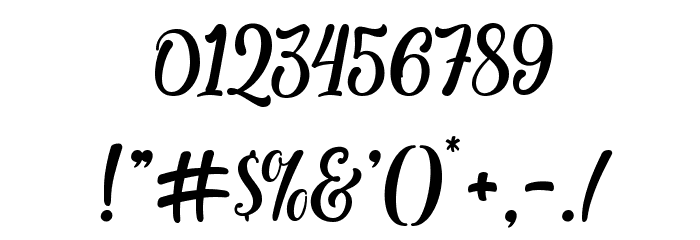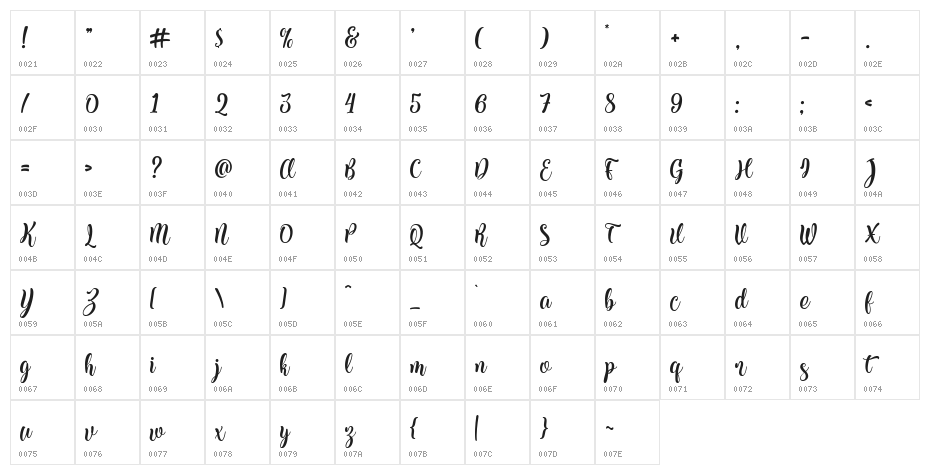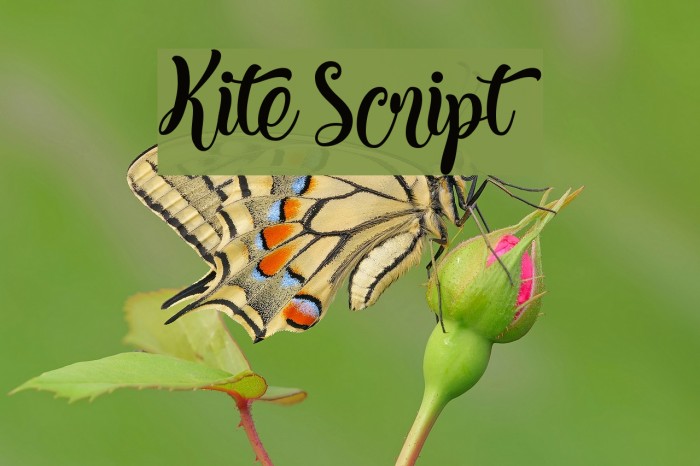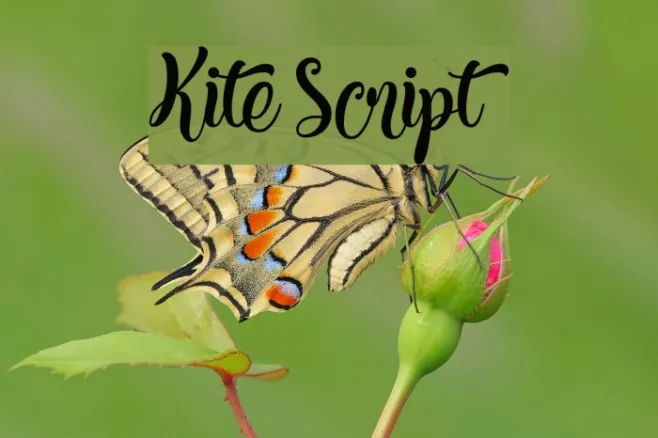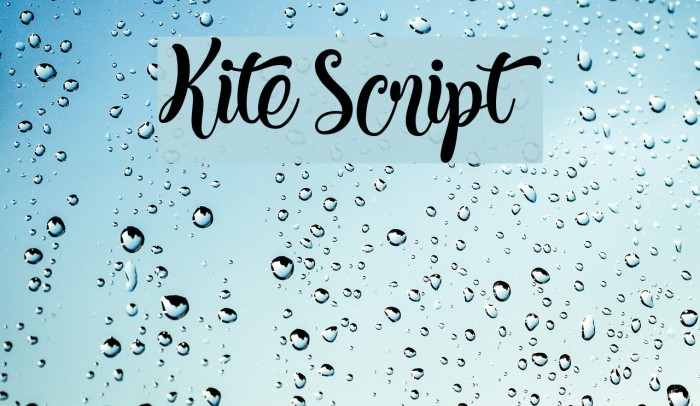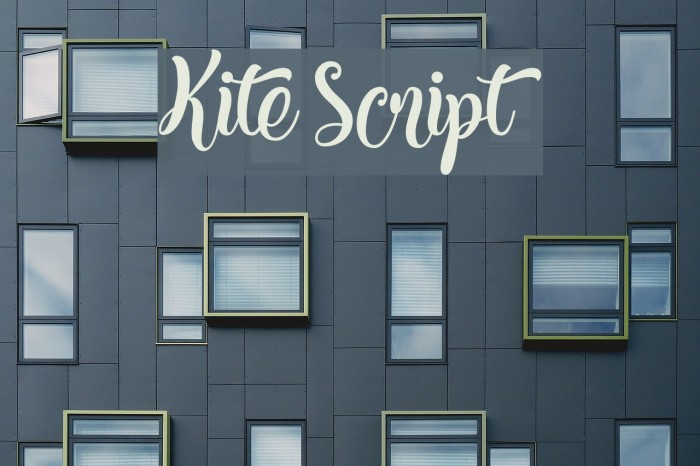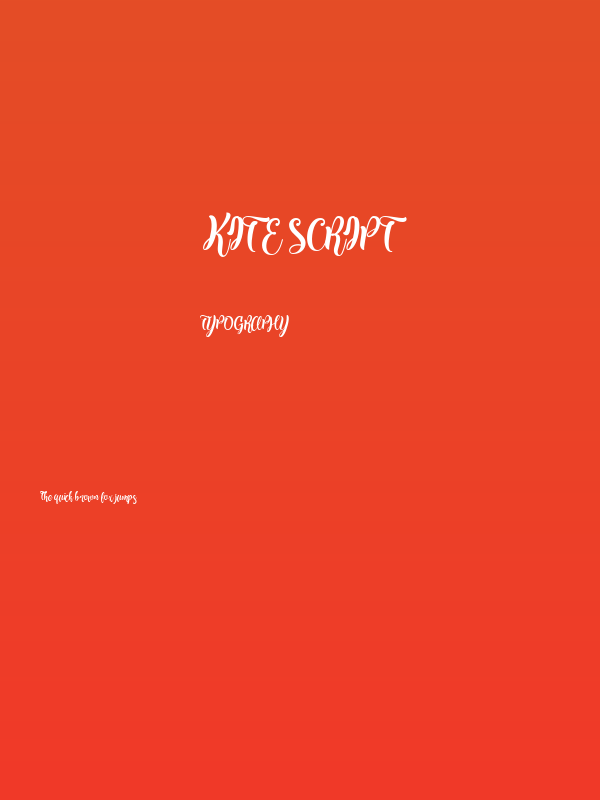
Kite Script Font
Kite Script Description
This font exudes a playful and elegant script style, characterized by its fluid, cursive strokes and smooth transitions between characters. The uppercase letters are bold and sweeping, with a dynamic flow that adds a sense of movement. The lowercase letters maintain a consistent style, with rounded forms and a slight slant, enhancing the handwritten feel. The numerals are clear and legible, matching the overall aesthetic with their curved lines. Special characters are thoughtfully designed to complement the script style, ensuring a cohesive look across all elements. This font is perfect for projects that require a touch of sophistication and creativity.